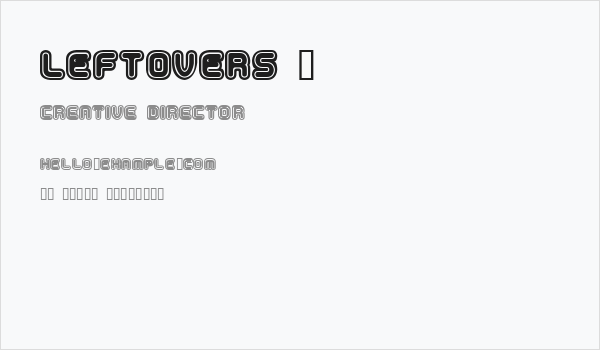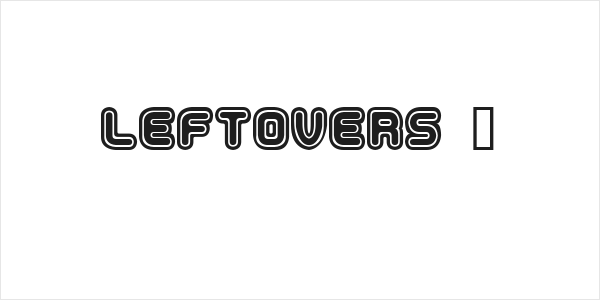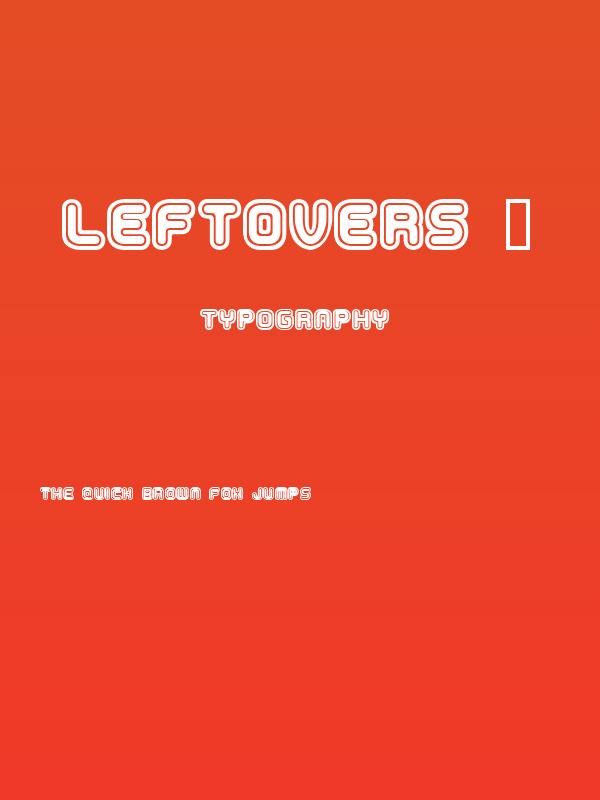
LeftOvers 3 Font
LeftOvers 3 Description
This font features a bold, double-lined outline style that gives it a distinct and modern appearance. The characters are uppercase and have a rounded, geometric form, which adds a playful and approachable feel. The design is consistent across all letters, maintaining a uniform thickness in the outlines, which enhances readability. The spacing between characters is normal, allowing for clear distinction between each letter. This font is particularly eye-catching and would stand out in any design project.
| Proposed Projects | Ideal for branding, posters, headlines, and any project that requires a modern and playful touch. |